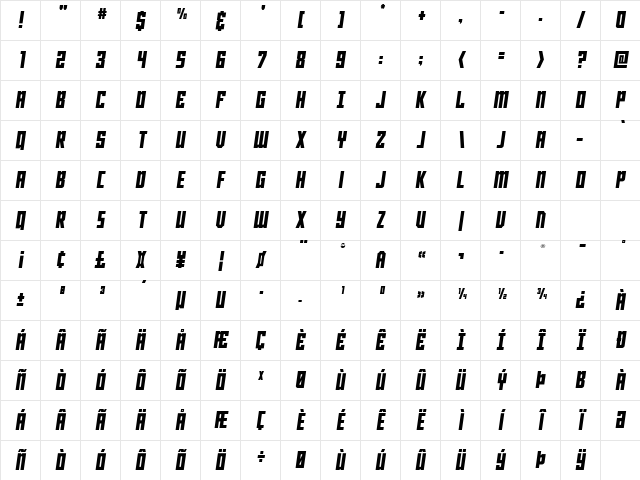
Joy Children Semi-Italic Regular
Complete Joy Children Semi-Italic Regular glyph index. Displaying only characters natively supported by Joy Children Semi-Italic Regular font.
Design Context for Joy Children Semi-Italic
Joy Children Semi-Italic has an approachable, lighthearted character - its loose, expressive forms are well-suited to children's content, casual branding, and fun-first design. The slanted form adds forward momentum and visual energy.
Font Pairing: Pairs well with a rounded or humanist sans for body copy, maintaining the friendly tone without relying on Joy Children Semi-Italic to carry extended reading.
Pro Tip: Use Joy Children Semi-Italic at larger display sizes where its expressive character can land. Pair with a clean, simple sans for body copy to maintain readability.